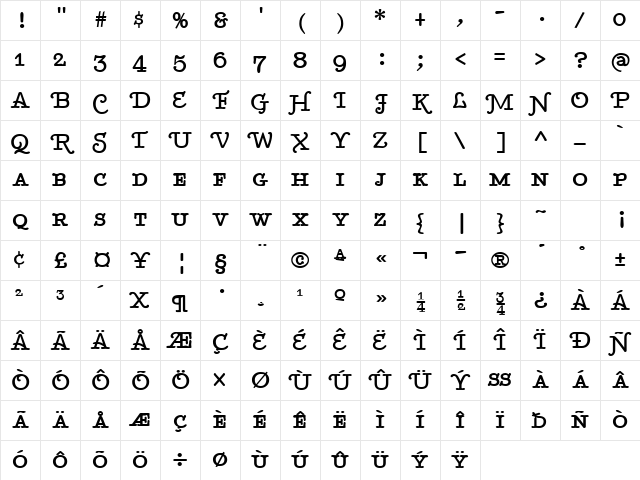
BetterTypeRiteSpec Bold Free Font
BetterTypeRiteSpec Bold
Complete BetterTypeRiteSpec Bold glyph index. Displaying only characters natively supported by BetterTypeRiteSpec Bold font.
Design Context for BetterTypeRiteSpec
BetterTypeRiteSpec is a composed and adaptable typeface that performs quietly and consistently across a wide range of design contexts. Its bold stroke weight gives it real presence on the page.